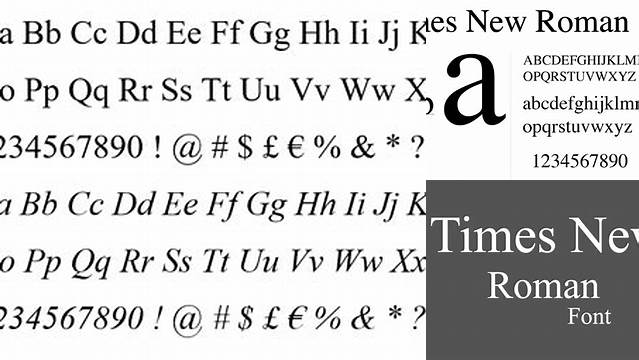
Free Times New Roman Fonts: Best Alternatives Guide
Hey guys! Ever wondered about the best free fonts out there, especially when you need something classic and reliable? Let's dive deep into the world of Times New Roman, a font that’s been a staple for decades. We’ll explore its history, why it’s so popular, and where you can find the best fonts similar to it for free. Get ready to geek out over typography!
What is Times New Roman?
Times New Roman is more than just a font; it’s a piece of design history. Created in 1931 by Stanley Morison and Victor Lardent for the British newspaper The Times, it was designed to be legible and space-efficient, making it perfect for print media. The font's clean, serif design—those little feet at the end of each stroke—gives it a traditional and authoritative feel. This makes Times New Roman an excellent choice for formal documents, academic papers, and any text where clarity and professionalism are key. But, let's be real, sometimes you need that classic vibe without breaking the bank. That’s where our search for free best fonts begins!
The genius of Times New Roman lies in its readability and versatility. Its designers meticulously crafted each character to ensure it remains clear and legible even at small sizes, a critical feature for newspaper printing where space is at a premium. The serifs provide a visual anchor, guiding the reader's eye smoothly across the text, which reduces eye strain and improves comprehension. This makes it an ideal choice not just for newspapers, but also for books, journals, and legal documents. Over the years, Times New Roman has become synonymous with formality and authority, often seen as the default choice for academic writing and official correspondence. However, its very ubiquity has also led to some criticism, with some designers finding it overused and lacking in personality. Despite this, its legacy and functionality remain undisputed. Finding free best fonts that capture the essence of Times New Roman involves looking for similar serif fonts that offer both readability and a touch of classic elegance. There are numerous fonts available today that draw inspiration from Times New Roman, offering variations in weight, width, and overall design, allowing you to achieve a similar look and feel while adding your unique flair. Whether you’re working on a formal report, a creative project, or a personal blog, understanding the characteristics of Times New Roman and its alternatives can significantly enhance your typography choices.
Moreover, the impact of Times New Roman extends beyond the printed page. With the advent of digital typography, it became one of the core fonts in early computer operating systems, solidifying its presence across various platforms. This widespread availability ensured that Times New Roman would remain a ubiquitous font, familiar to almost everyone. Its simple, clean design translates well to the screen, making it a reliable choice for web design and digital documents. However, modern web design trends have seen a shift towards sans-serif fonts for body text due to their enhanced readability on screens. Despite this shift, Times New Roman continues to be a valuable option for headings and print-based content. The font's enduring popularity also means that countless variations and interpretations have emerged over the years. Designers have created fonts that closely mimic Times New Roman's appearance, while others have taken its basic structure and added their own creative touches. This vast array of options allows you to explore different styles and find the perfect font for your specific needs. When searching for free best fonts in the Times New Roman family, it’s essential to consider factors such as licensing, legibility, and overall aesthetic. Some free fonts may have restrictions on commercial use, so it's crucial to check the licensing terms before using them in professional projects. Ultimately, the key to selecting the right font is to balance functionality with visual appeal, ensuring that your text is both readable and engaging.
Why is Times New Roman So Popular?
So, why the Times New Roman love? Well, several reasons make it a go-to font. First off, its legibility is top-notch. The clear, crisp letters make it easy to read, which is super important for long documents or articles. Second, it’s versatile. You can use it for almost anything – from formal letters to academic papers. Third, it’s universally available. Most computers and software programs come with Times New Roman pre-installed, making it a convenient choice for everyone. Plus, let's not forget its professional look. It just screams “I mean business!” But, if you're looking for something similar without the hefty price tag, finding the best fonts for free is the way to go.
Times New Roman's popularity is also rooted in its historical significance. As mentioned earlier, it was commissioned by The Times newspaper, a publication with a long-standing reputation for journalistic integrity and quality. This association with a respected institution lent Times New Roman an air of authority and credibility. The font’s design principles, focusing on readability and efficiency, aligned perfectly with the newspaper’s mission to deliver information clearly and concisely. This historical context has contributed to Times New Roman’s widespread adoption in various professional fields, including law, academia, and business. Its classic appearance conveys a sense of tradition and seriousness, making it a preferred choice for documents where a formal tone is desired. However, the font's very success has also made it somewhat controversial. Some designers argue that its ubiquity has led to its overuse and that it lacks the individuality and personality found in more contemporary typefaces. Despite these criticisms, Times New Roman remains a reliable and practical choice for many situations. When searching for free best fonts that mimic Times New Roman, it's worth considering what aspects of the font you find most appealing. Are you drawn to its serifs, its balanced proportions, or its overall formality? Understanding your preferences will help you narrow down your options and find a free font that meets your specific needs. For instance, if you appreciate the readability of Times New Roman, look for free fonts with similar x-heights and letter spacing. If you’re after the classic aesthetic, explore serif fonts that share its traditional styling. Ultimately, the goal is to find a font that not only looks good but also enhances the readability and impact of your message.
Furthermore, the digital age has played a significant role in maintaining Times New Roman's popularity. As one of the standard fonts included in Microsoft Windows and other operating systems, it became instantly accessible to a vast number of users. This ease of access cemented its status as a default choice, particularly for those who may not have specialized knowledge of typography. In many ways, Times New Roman became the “safe” option, a font that people could rely on to look professional and legible in almost any context. However, the rise of the internet and the proliferation of web design have also challenged Times New Roman's dominance. Web designers have increasingly favored sans-serif fonts for online text, citing their improved readability on screens. This has led to a decline in Times New Roman’s popularity in some areas, but it still remains a widely used font in print media and traditional documents. The quest for free best fonts that resemble Times New Roman is driven by a desire to maintain that classic aesthetic without the associated costs. Many designers and typographers have created free fonts that capture the essence of Times New Roman, offering subtle variations and improvements. These free fonts provide an excellent alternative for those seeking a similar look and feel while avoiding the perceived overuse of Times New Roman itself. When selecting a free font, it’s important to consider factors such as licensing, font quality, and the specific requirements of your project. By exploring the range of available options, you can find a free font that not only meets your needs but also adds a unique touch to your design.
Where Can You Find Free Fonts Like Times New Roman?
Okay, so you’re on the hunt for free best fonts that give off that Times New Roman vibe? You’re in luck! There are tons of places online where you can snag some great typefaces without spending a dime. Websites like Google Fonts, Font Squirrel, and DaFont offer a wide variety of free fonts that are similar in style and readability to Times New Roman. These sites let you browse, preview, and download fonts for both personal and commercial use. Just be sure to double-check the licensing terms before you start using them in your projects. Nobody wants a font faux pas!
Google Fonts is a fantastic resource, offering a vast library of open-source fonts that are completely free to use for any project, whether it's personal or commercial. The platform is user-friendly, allowing you to easily search and filter fonts based on various criteria, such as serif, sans-serif, weight, and style. You can preview the fonts in different sizes and styles to ensure they meet your needs. Google Fonts also provides the necessary code snippets to embed the fonts directly into your website, making it incredibly convenient for web design projects. Some excellent Times New Roman alternatives on Google Fonts include Arvo, Bitter, and Roboto Serif. These fonts share the classic serif structure of Times New Roman but offer their unique characteristics, allowing you to add a touch of individuality to your text. Font Squirrel is another excellent website for finding free fonts. It specializes in high-quality free fonts that are licensed for commercial use. This is a crucial point, as many free font websites offer fonts for personal use only, which can create legal issues if you use them in a professional project. Font Squirrel carefully curates its selection, ensuring that all fonts are of a high standard and come with clear licensing information. You can find some hidden gems on Font Squirrel that perfectly capture the essence of Times New Roman while offering a fresh twist. Fonts like Lora and Merriweather are great examples, providing a sophisticated and readable alternative. DaFont is a popular choice for its extensive collection of free fonts, ranging from classic styles to more decorative and whimsical options. While DaFont's selection is vast, it's essential to be cautious about licensing. Many fonts on DaFont are free for personal use only, so you need to check the details carefully before using them in commercial projects. However, if you're looking for free fonts for personal projects or creative endeavors, DaFont is a treasure trove. You can find several fonts that mimic the traditional serif style of Times New Roman, allowing you to experiment with different looks and feels. Exploring these various platforms will undoubtedly help you discover the best free fonts to meet your needs, ensuring you have access to quality typography without the expense.